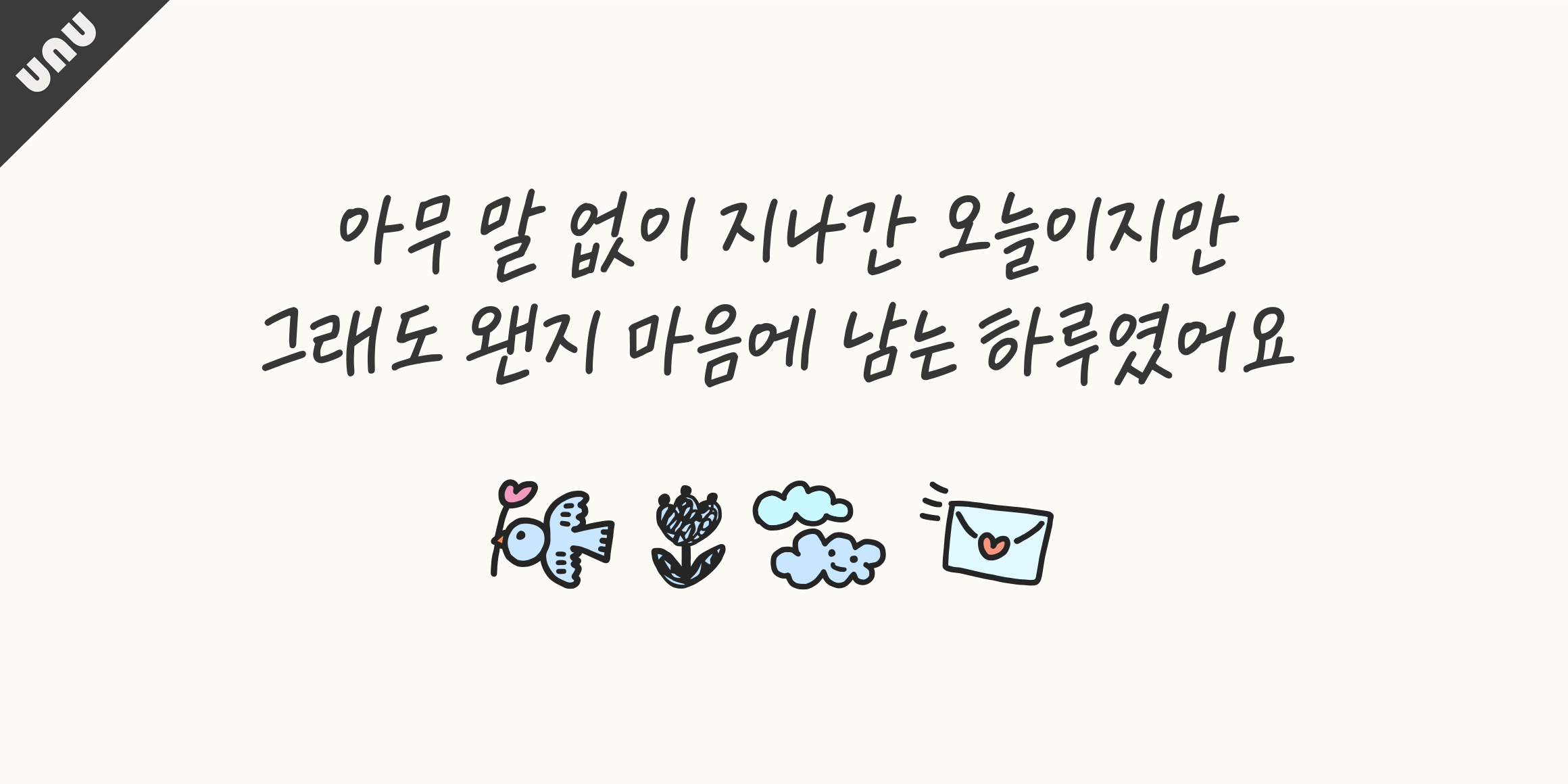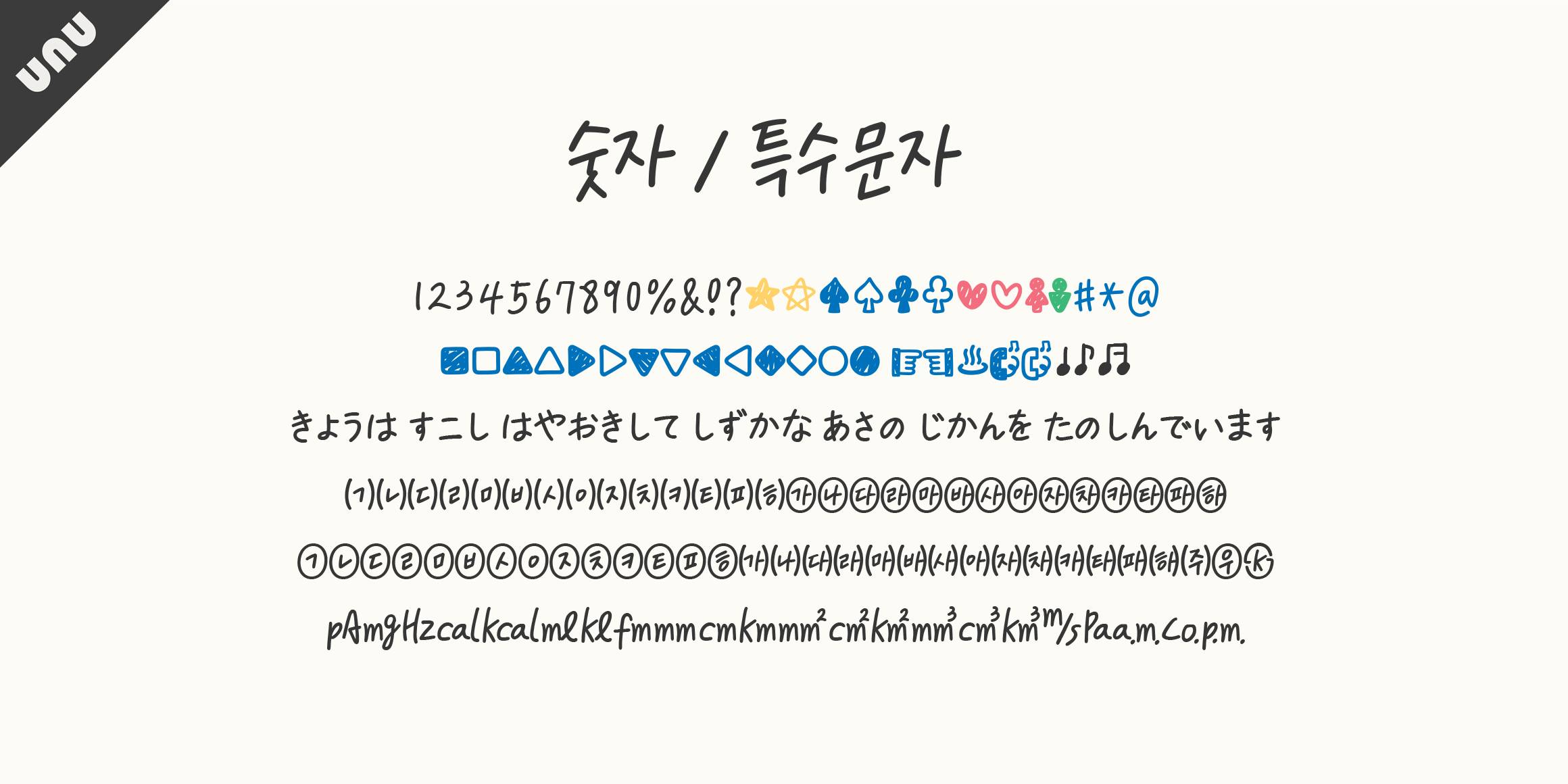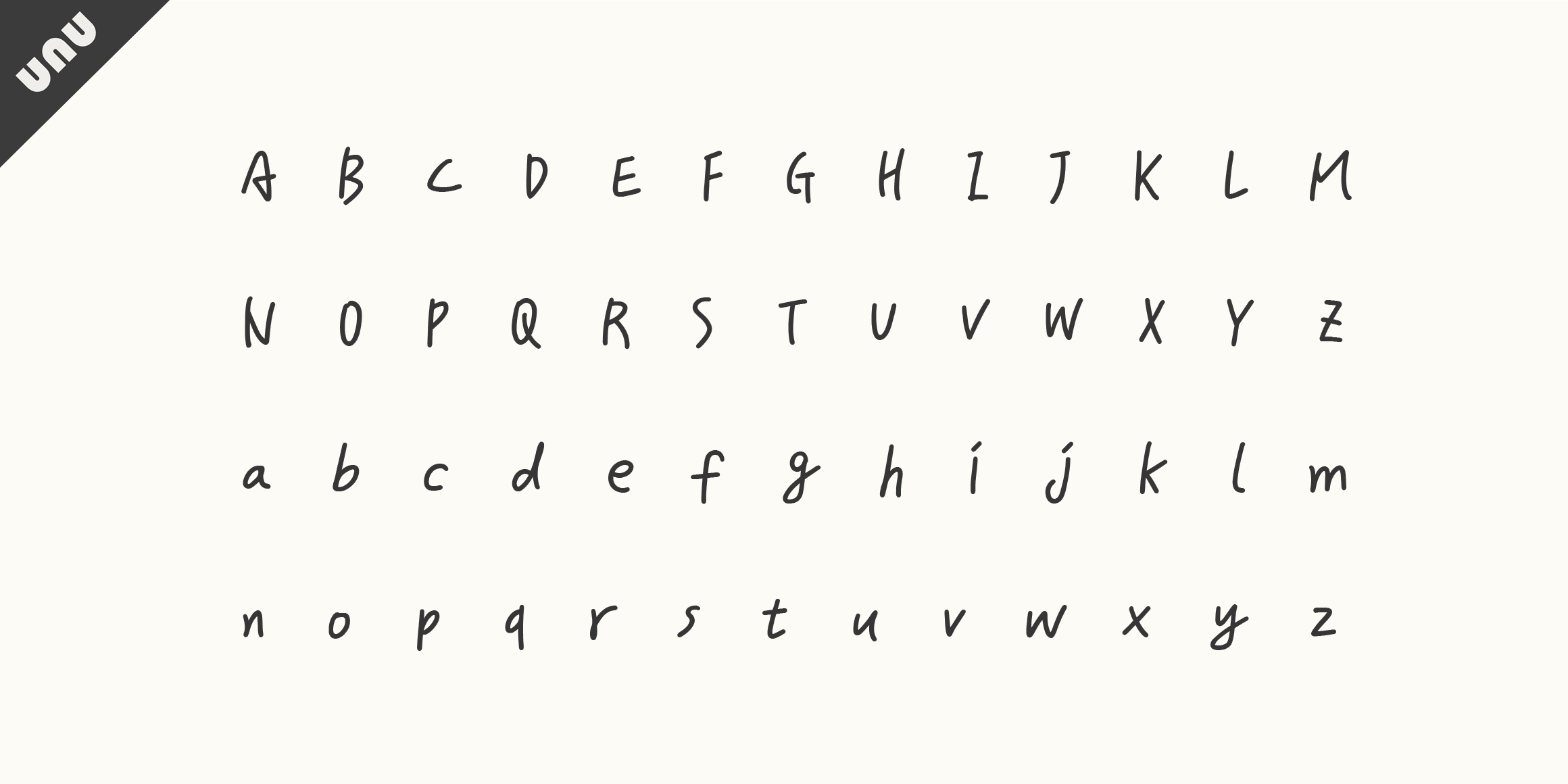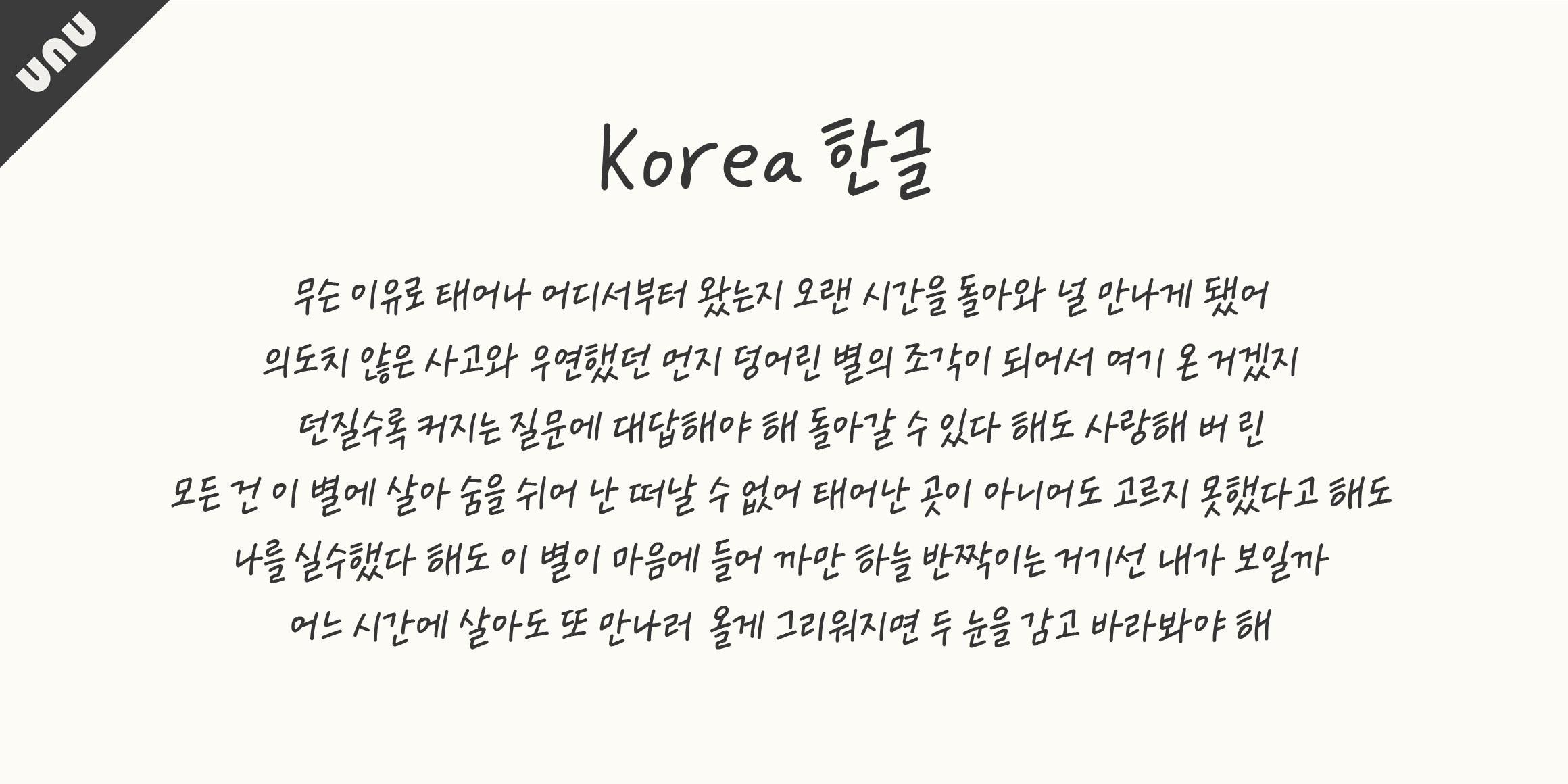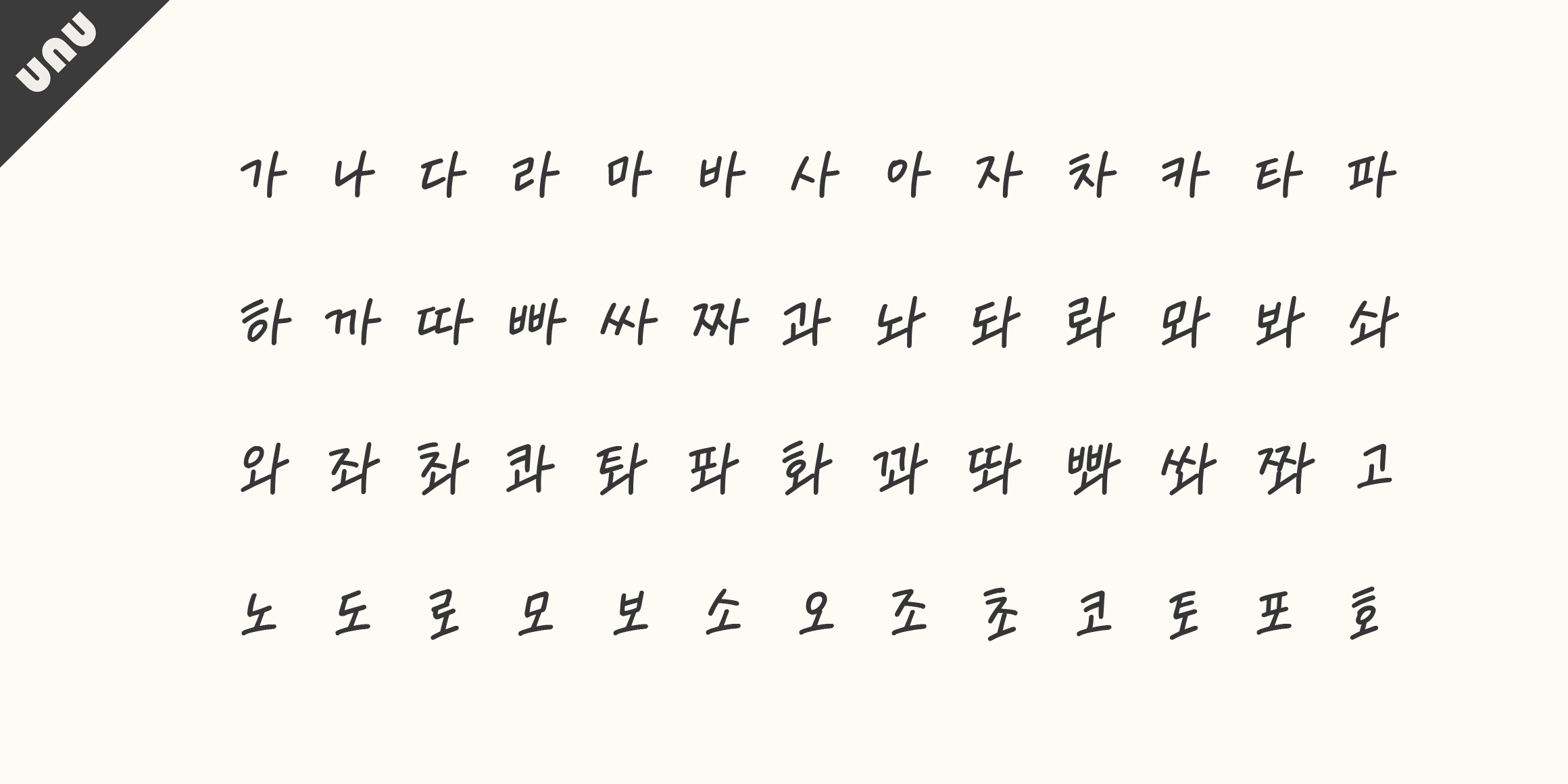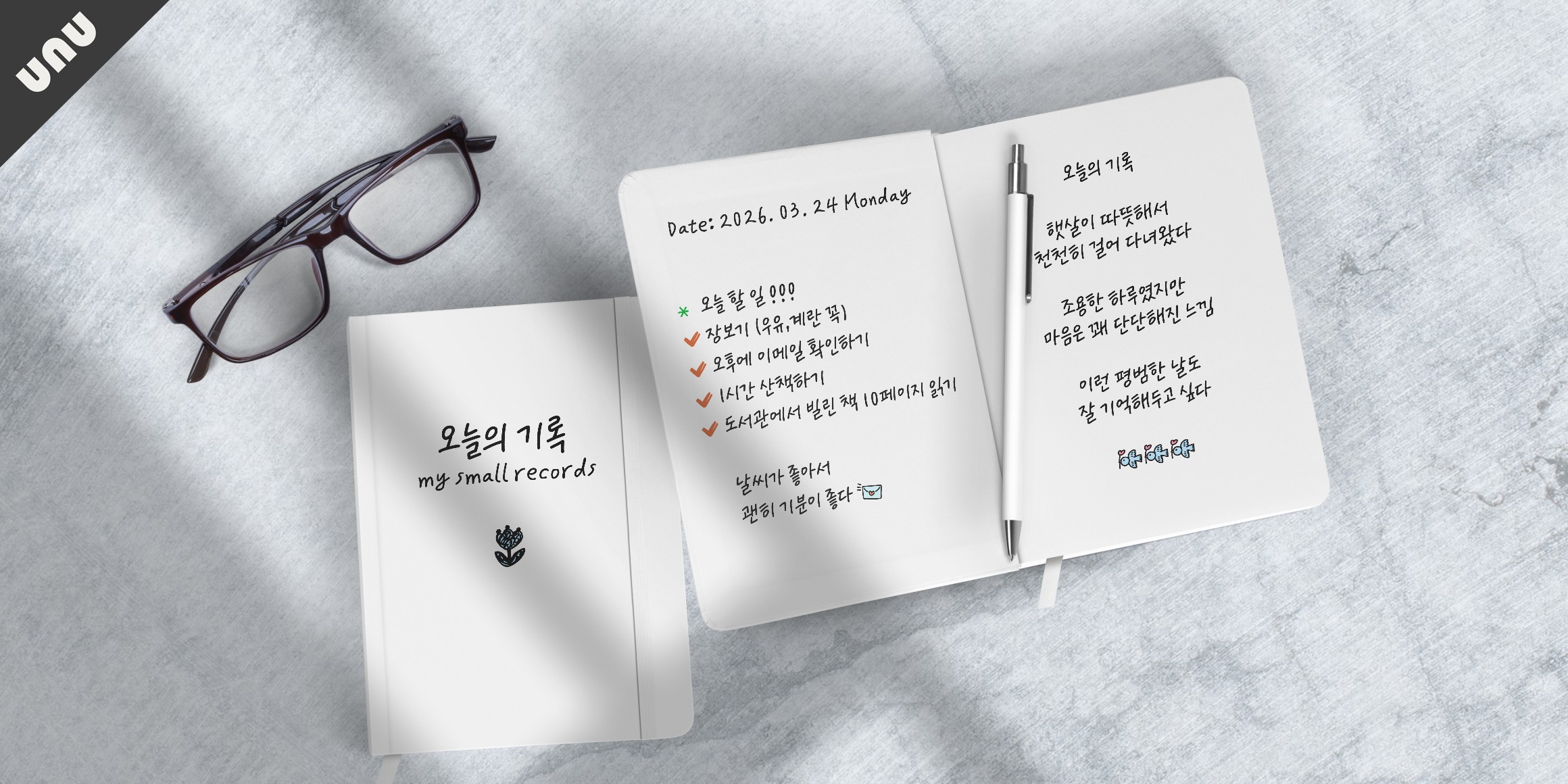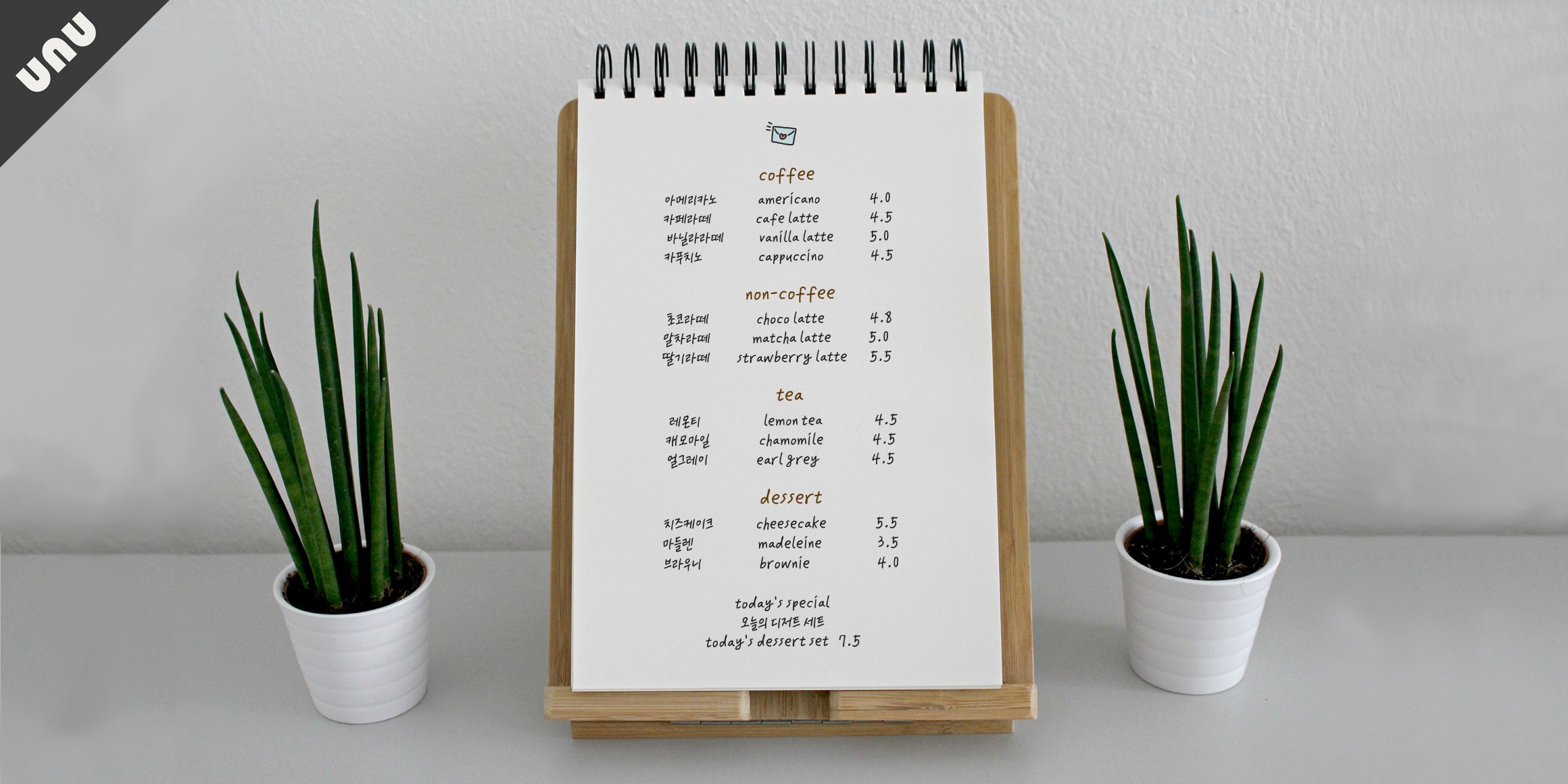
unusendmylove
unu
A handwritten typeface that captures stylish penmanship and the power of beautifully balanced letterforms. Its confidently flowing strokes make it perfect for expressing your sincere feelings to someone special. With its honest and charming handwriting style, why not share your heart more openly?
We hope the warm and genuine spirit of the U&U Typeface helps you convey your heartfelt emotions today as well.